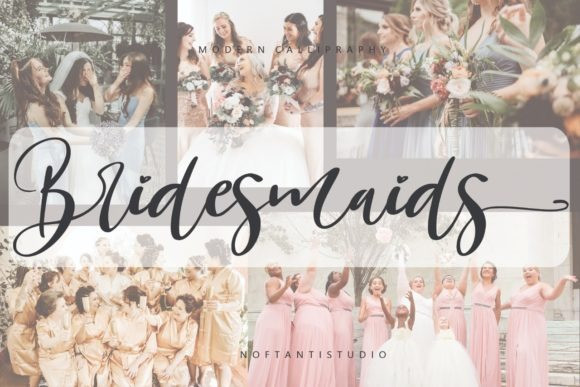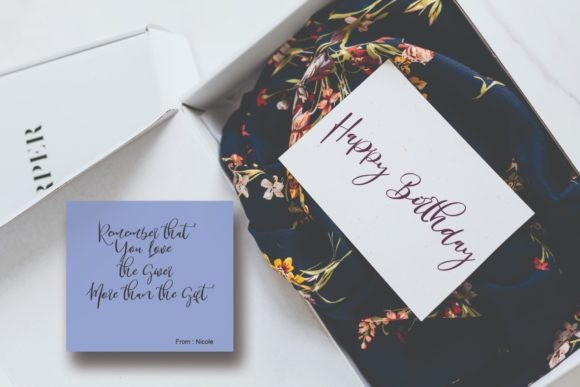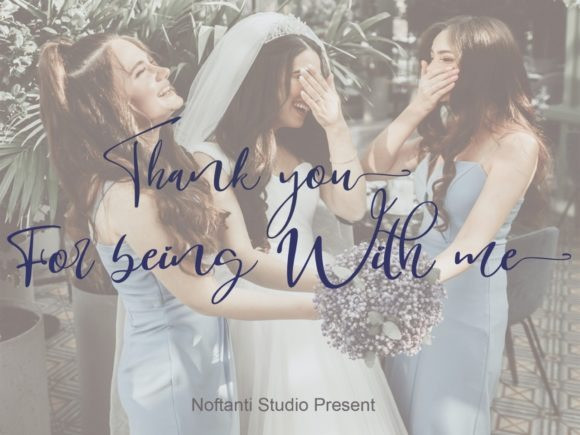
Goryfitts Script Font
Goryfitts is a signature script font, With a high contrast stroke clean and fun characters. It has Opentype features of ligatures and swashes, makes it a perfect choice for branding and digital designs. Use this font for logos, social media, websites, blogs, instagram, social media, business cards, branding, and more! Goryfitts font support multilingual more than 100+ language. and good pair for your secondary text font with sans or serif. Make a stunning work with Goryfitts signature script font.